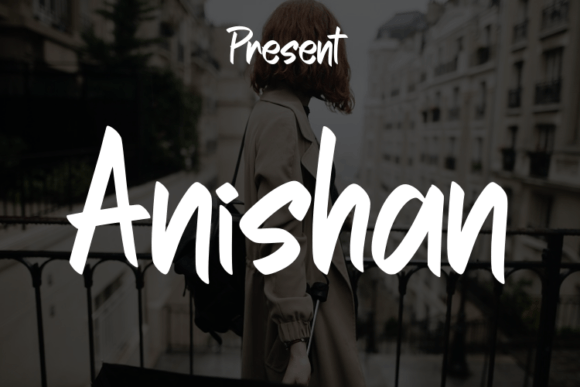
The Elusive Font: My Journey with Anishan
I still remember the design project that had me scouring the internet for the perfect font. My client, a luxury fashion brand, needed a sophisticated and modern title for their new campaign. I tried font after font, but nothing seemed to fit the bill. That was until I stumbled upon Anishan, a script typeface that has a simple style and modern look. ✨
An Honest Review of Anishan
• ✅ Elegant and luxurious feel, perfect for high-end brands
• ✨ Simple yet modern design that works well in a variety of contexts
• 🔥 Highly legible, even at smaller font sizes
• 🎨 Versatile and can be used for a range of design projects, from logos to magazine titles
While Anishan is an excellent font, it’s not without its quirks. 🤔 For example:
• ⚠️ Some users may find the font a bit too condensed for certain design applications
• 🤔 Limited availability of stylistic alternates, which may limit creative options
The Backstory of Anishan
Anishan was designed by a team of typographers who wanted to create a font that embodied the perfect balance of elegance and modernity. Inspired by the clean lines and simple shapes of modern architecture, Anishan is a font that’s both sophisticated and approachable. The design team spent countless hours perfecting the font’s curves and lines, ensuring that it would be a versatile and reliable choice for designers. 🌆
Q: What is Anishan’s personality?
A: Anishan has an elegant and luxurious personality, making it perfect for high-end brands and sophisticated design projects.
Q: Does Anishan support OpenType features?
A: Yes, Anishan supports OpenType features, including ligatures and stylistic alternates, which can add visual interest to your design.
Q: Is Anishan suitable for body text?
A: While Anishan is highly legible, it’s primarily designed for display purposes. For body text, you may want to consider a font with a more traditional design.